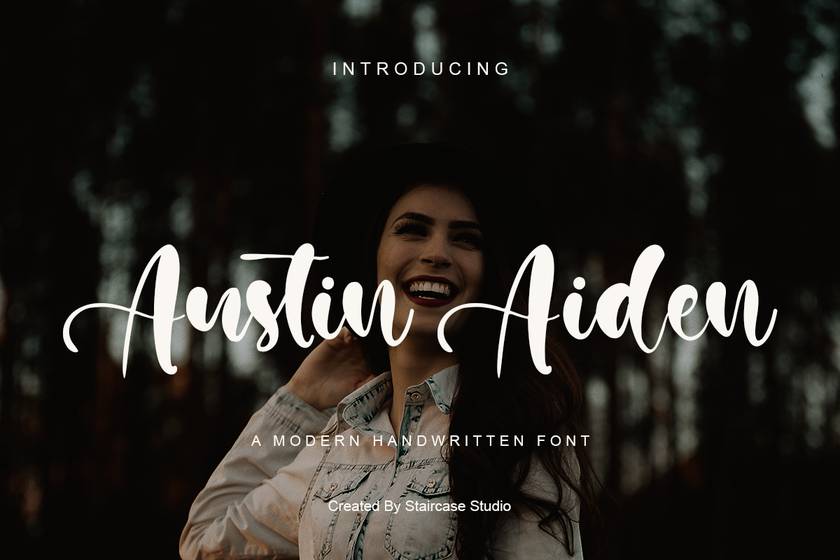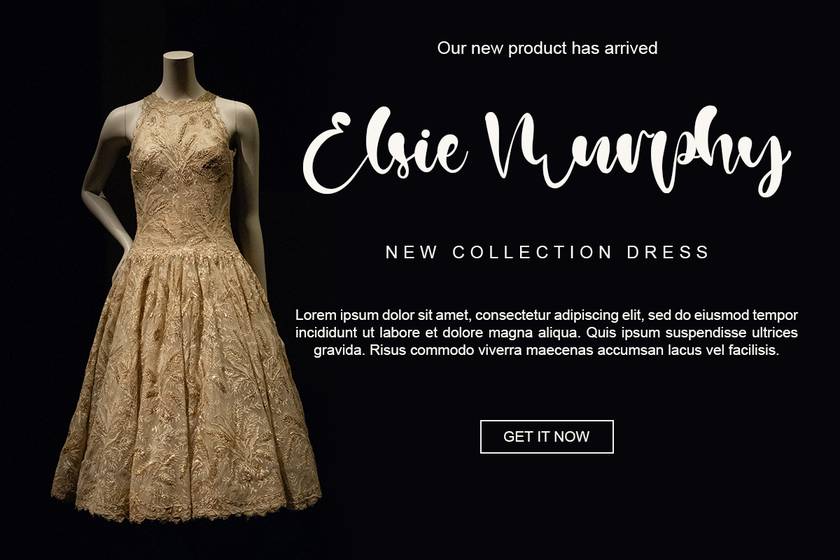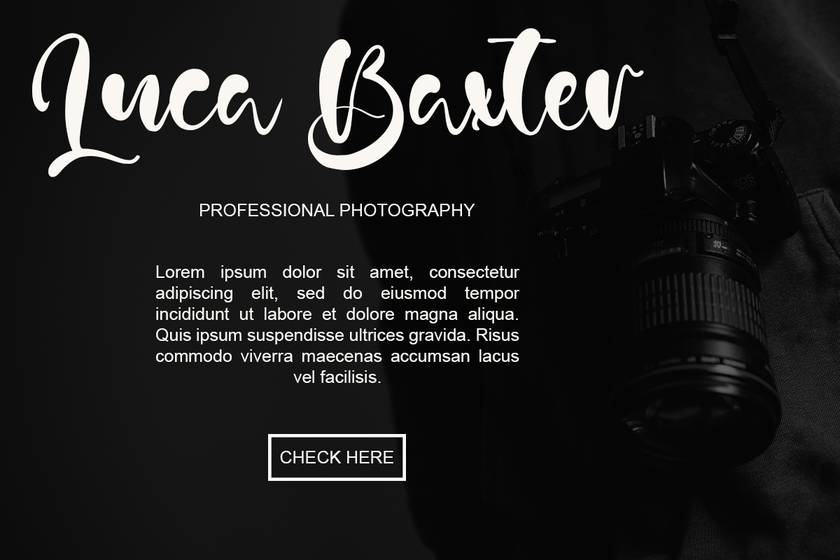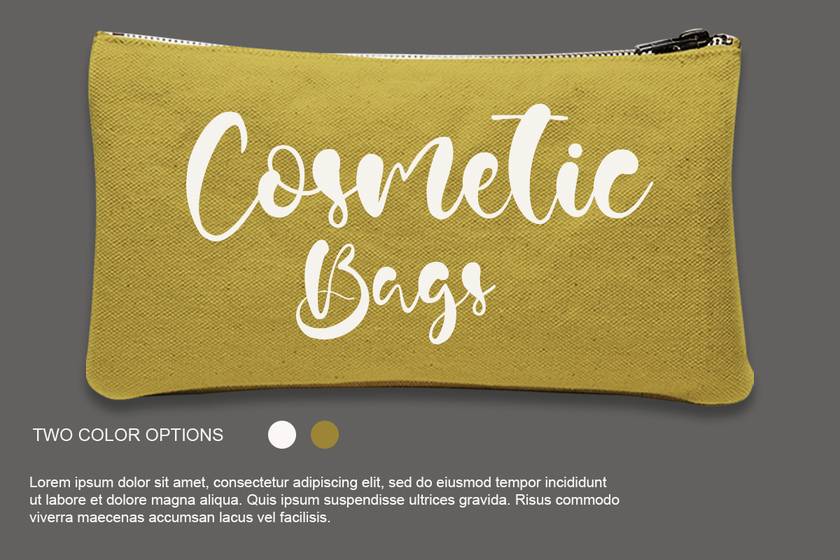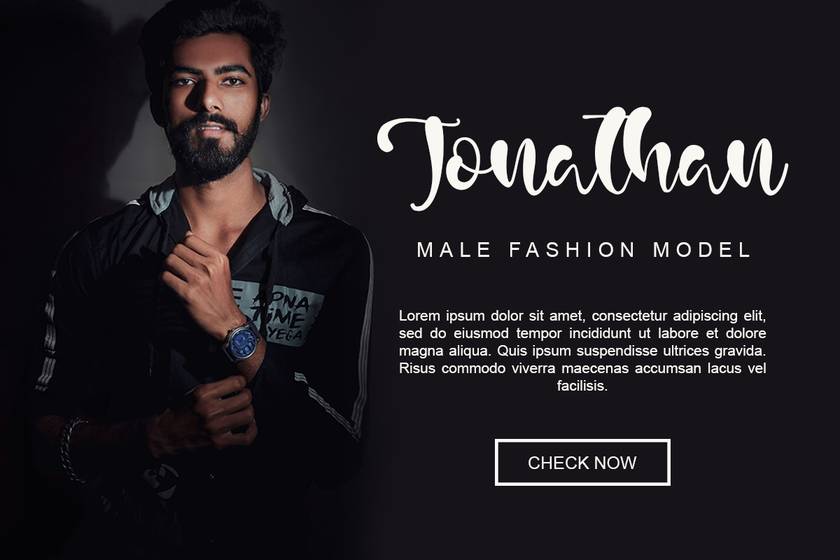
Austin Aiden is an elegant script font featuring smooth, flowing strokes with a moderate contrast that captures a handmade, calligraphic feel. Its playful yet sophisticated character makes it ideal for creative branding, invitations, and stylish headlines where a personal and graceful touch is desired. This font works beautifully in fashion, wedding, and luxury contexts, bringing a warm and charming personality to any design.
| Font family | Austin Aiden Font |
| Release date | 2021-10-14 |
| Designer | Staircase Studio |